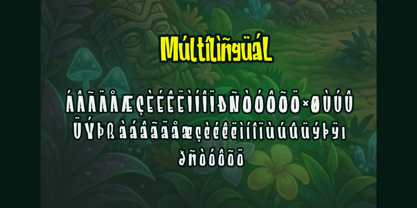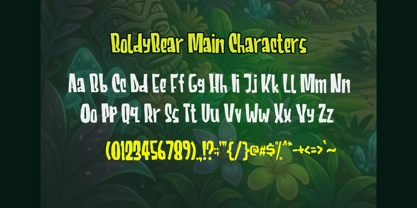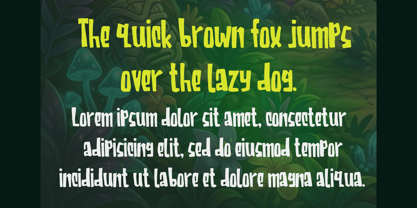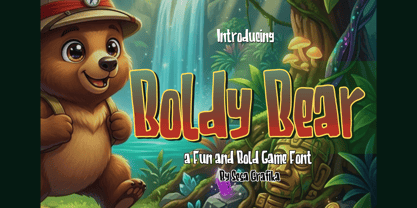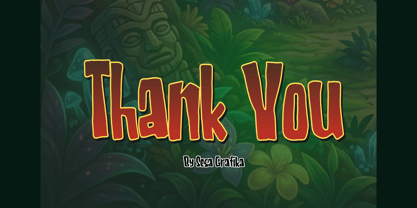
Boldybear
by Sesa Grafika
The Boldybear Font Family was designed by Wisesa Purba Giandar and published by Sesa Grafika. Boldybear contains 1 styles. More about this family
Boldy Bear is a striking display font that seamlessly combines retro funk with a gritty grunge texture, resulting in a raw, rebellious aesthetic. Featuring chunky, stylized glyphs and thick outlines, this font is perfect for creating attention-grabbing headlines, posters, streetwear designs, album covers, and bold branding. Its playful yet rugged appearance injects a punch of attitude, making it an ideal choice for creative projects that require both funk and edge. Additionally, with PUA encoding included, all special characters and decorative elements are easily accessible without the need for additional software, enhancing its versatility for various design applications.
Designers: Wisesa Purba Giandar
Foundry: Sesa Grafika